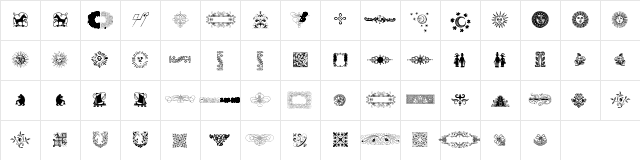
Complete Rough Ornaments Free Regular glyph index. Displaying only characters natively supported by Rough Ornaments Free Regular font.
Rough Ornaments Free embraces imperfection - its rough, textured character adds raw authenticity to designs that want to feel lived-in and unconventional.
Pro Tip: Use Rough Ornaments Free at larger sizes where the texture and irregularity of each letterform can be clearly seen - it loses its character at small sizes.